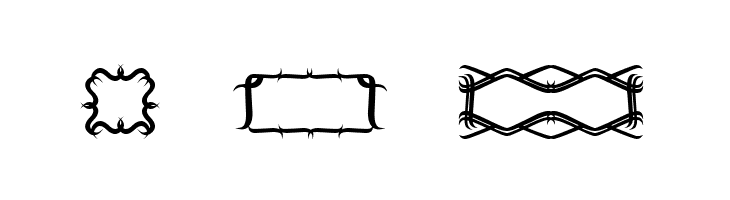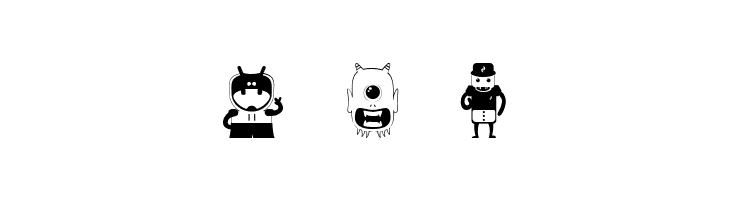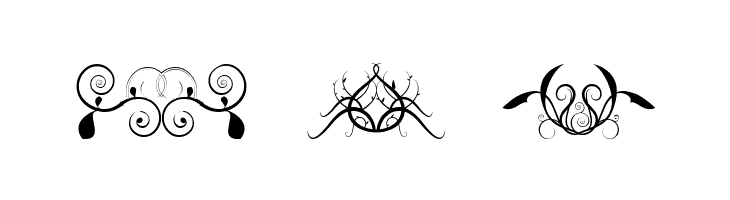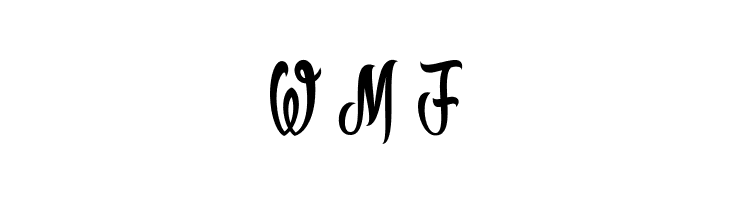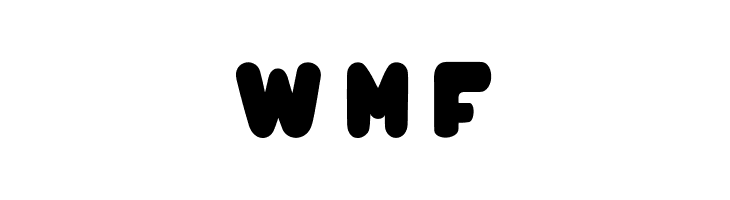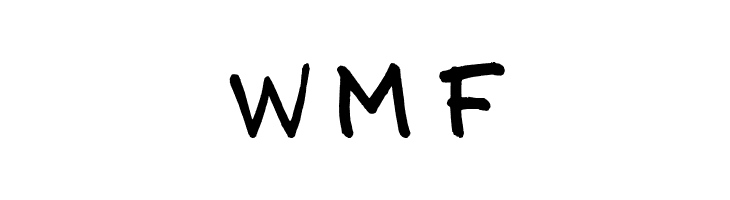
Ornate decorative frames with intricate vintage patterns.
A fun dingbat font of cartoon monster and toy illustrations.
Ornamental flourishes with intricate, vintage-inspired details.
A playful and whimsical font with exaggerated curves and quirky letterforms.
A playful, bold font with a whimsical, hand-drawn style.
A dynamic, flowing script font with elegant, cursive letterforms.
An artistic, calligraphic font with flowing lines and decorative flourishes.
A playful, bold font with rounded, bubbly characters perfect for fun designs.
A dynamic, brush-stroke font with an edgy, hand-drawn appearance.
A bold, brush-style font with a dynamic and informal appearance.